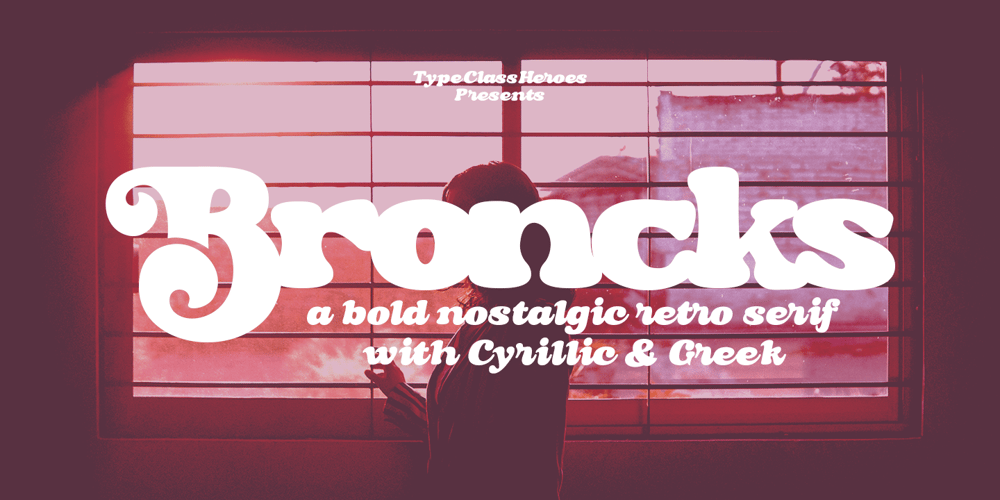
Broncks Font Family was designed by Suandana ipandemade and published by TypeClassHeroes. Broncks contains 2 styles and family package options. Broncks is a nostalgic retro font come with 80’s retro style serif and refined you can explore and combine creating rhythm for comfortable reading. This font supports more than 100 Latin-based languages and has extensive Cyrillic and Greek support for languages like Russian, Bulgarian, Ukrainian, and many more. Feature Uppercase & Lowercase Number & Symbol International Glyphs Multilingual support Alternative Cyrillic & Greek Feel free to drop us a message any time and follow my shop for upcoming updates.Hope you enjoy it.